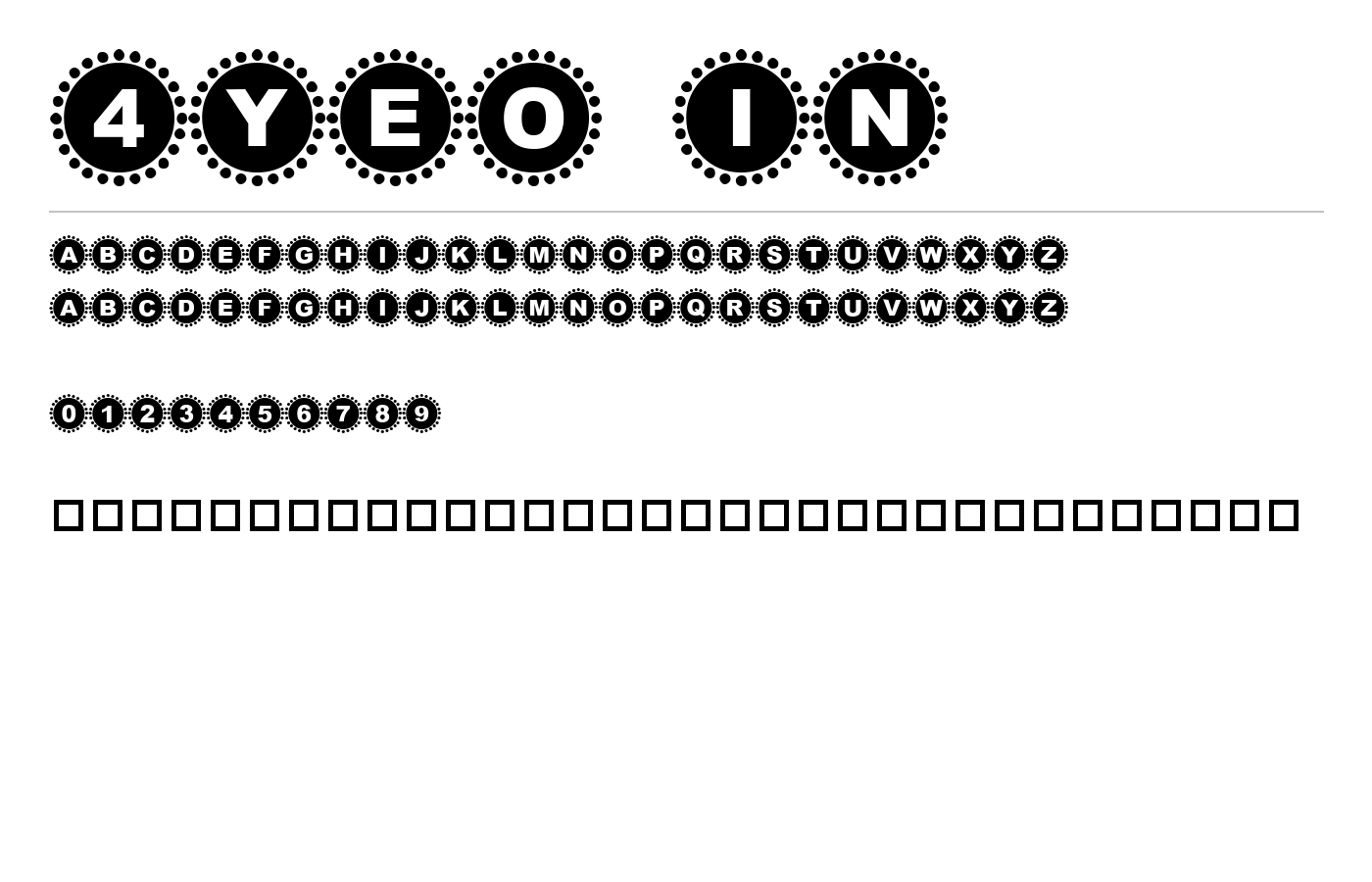
4YEO IN is a bold, geometric sans serif font characterized by its strong, rounded letterforms enclosed within dotted circular outlines, creating a playful and eye-catching visual effect. Its uppercase-only design and solid, evenly weighted strokes make it ideal for headlines, logos, and packaging that seek to convey a modern, fun, and distinctive style. This font works best where a bold statement is needed, adding personality and charm to branding and display projects.
4YEO IN Font